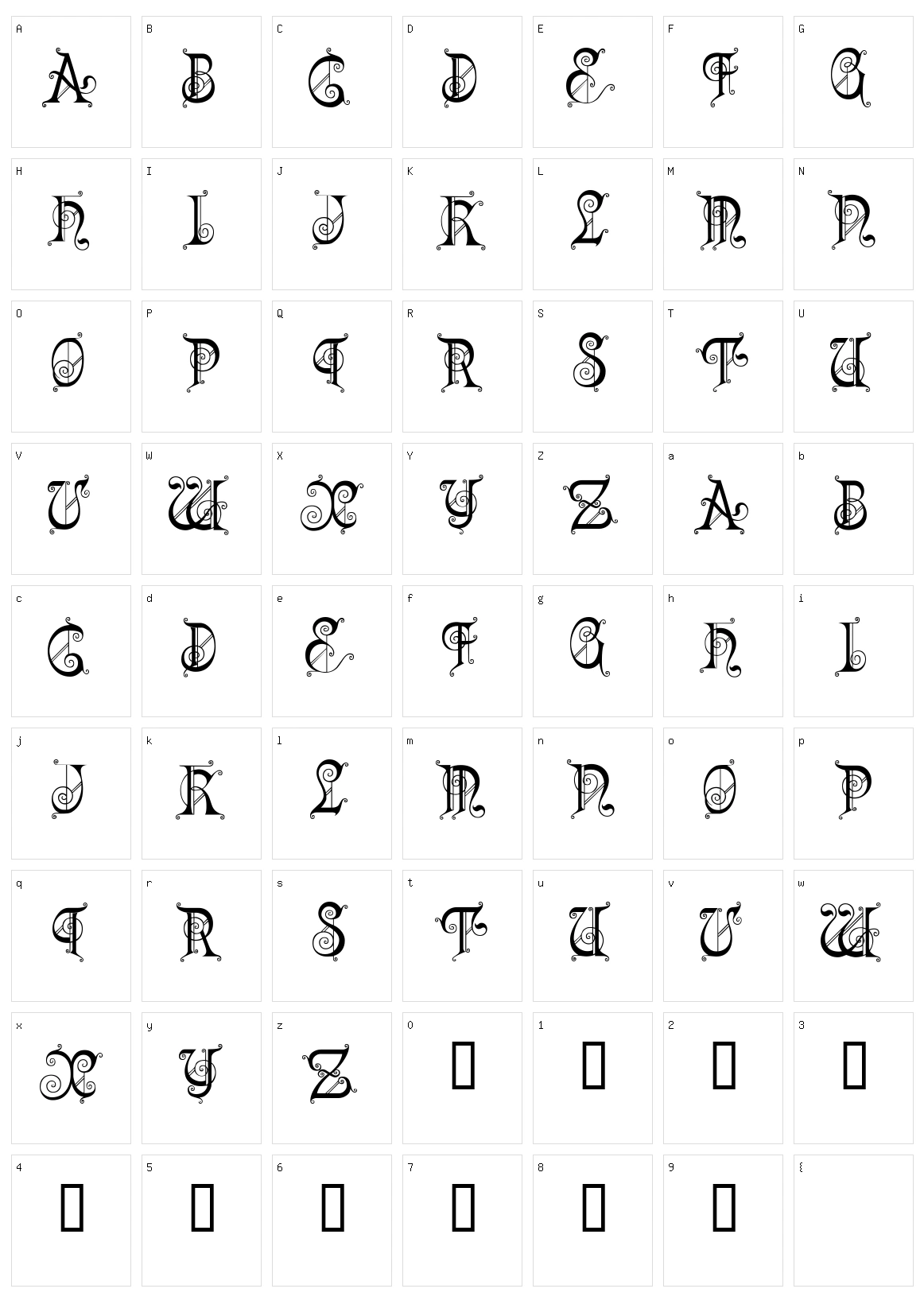
The free font Kingdom Come is carefully designed by Shrine Of Isis Font Foudry, showcasing a thoughtful balance of creativity and usability and falls under the Script font style. When you download the ZIP file, it contains only 16.79 KB of font files, making it lightweight and quick to download. Please review the license details below to understand permitted usage and distribution rights. If license information is not available, we recommend using this font for personal projects only or contacting the author directly for commercial usage permissions.